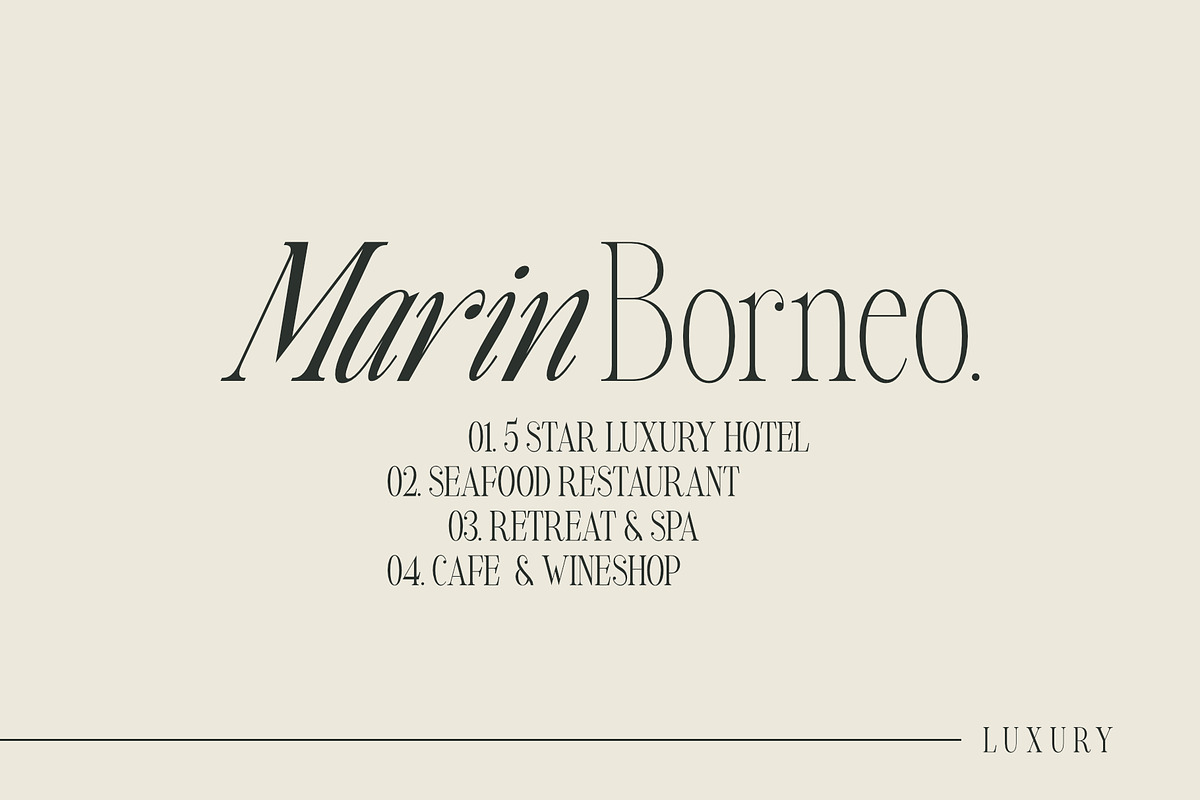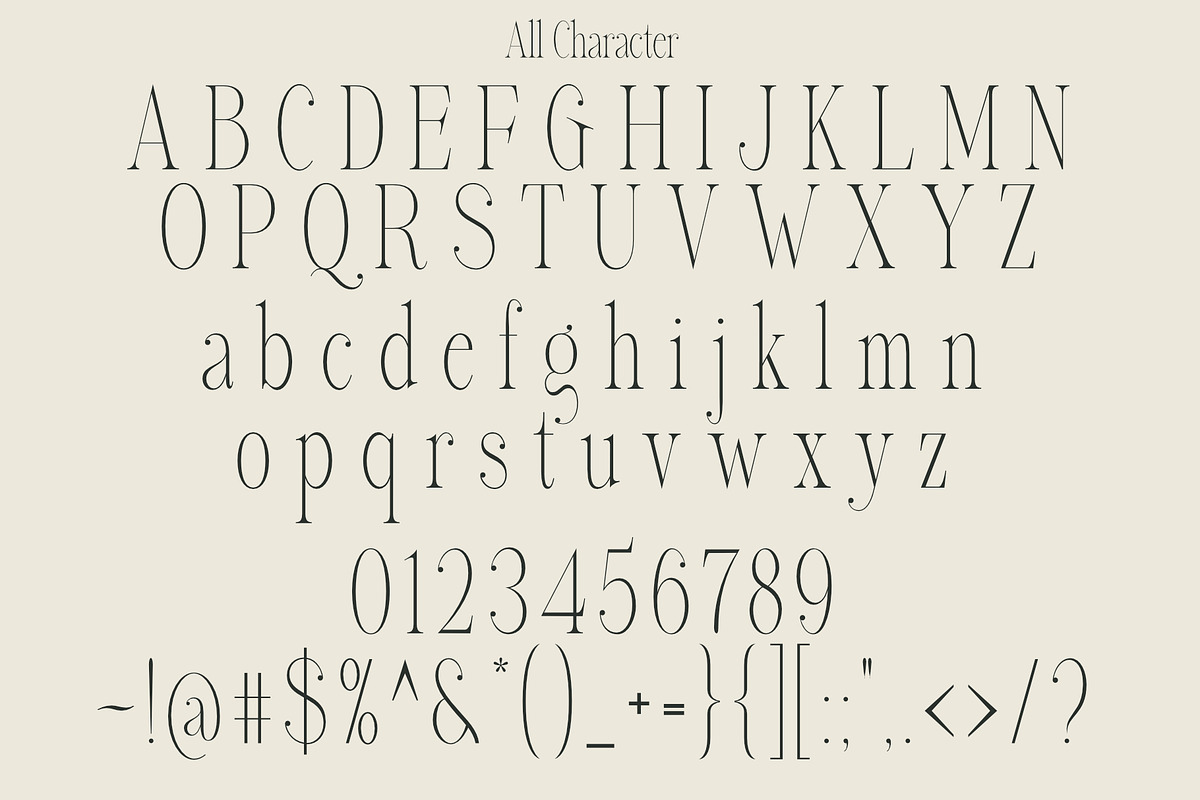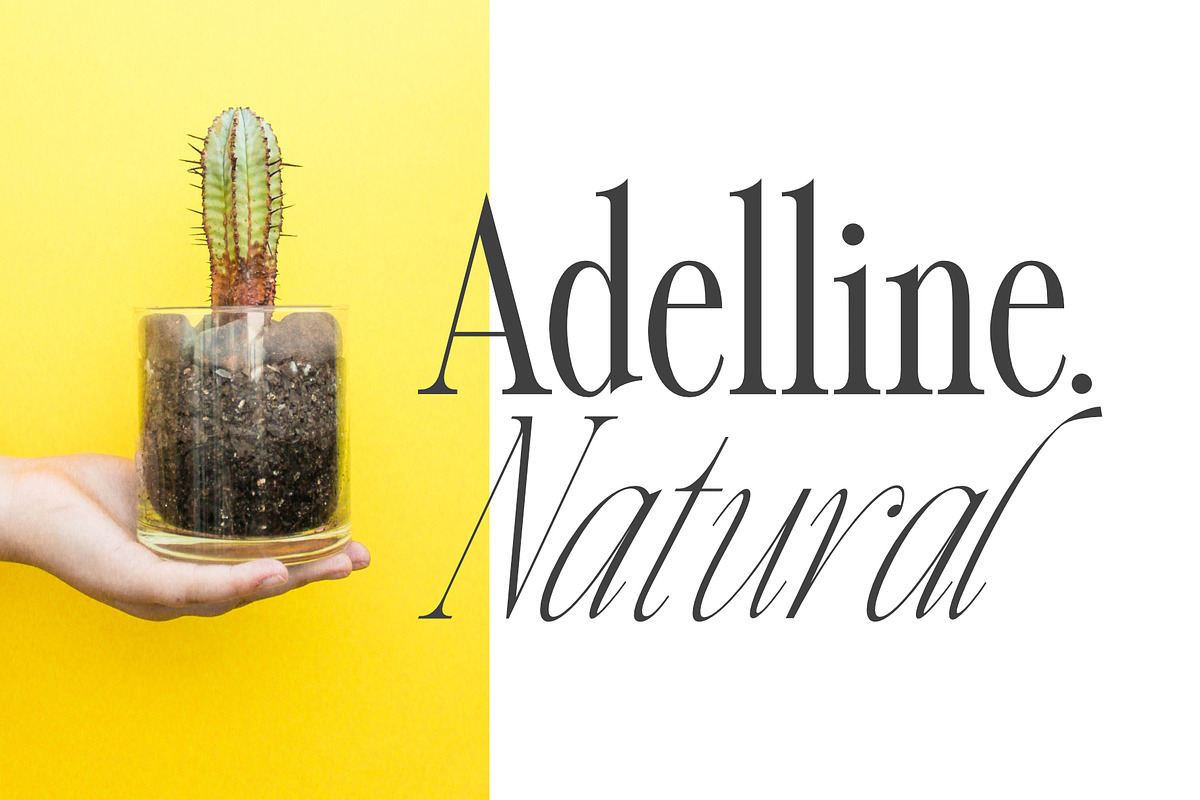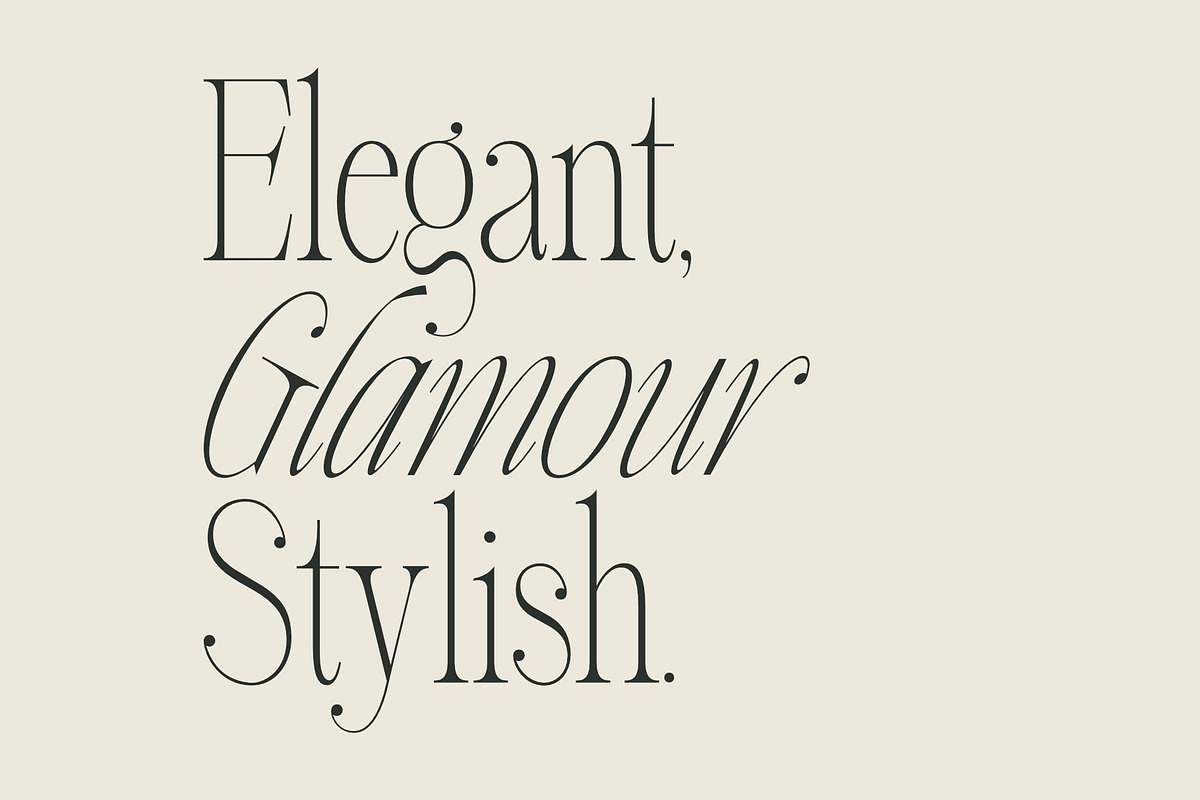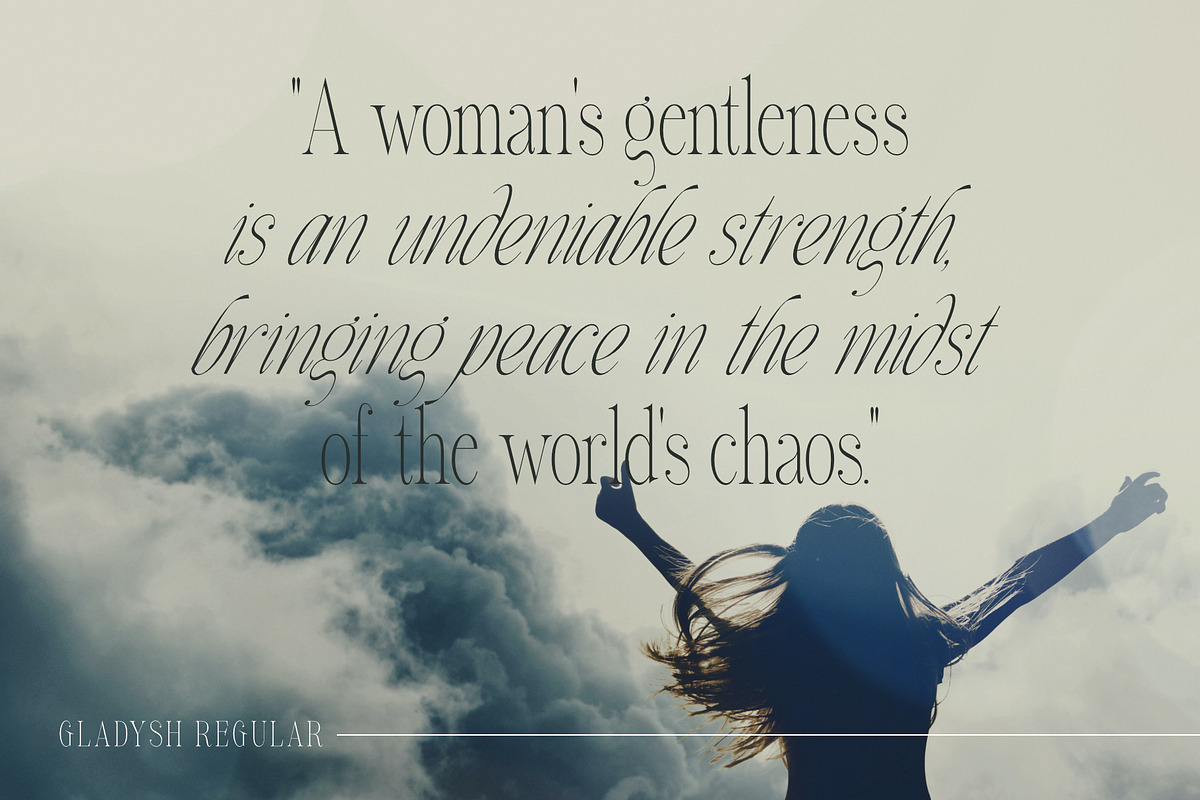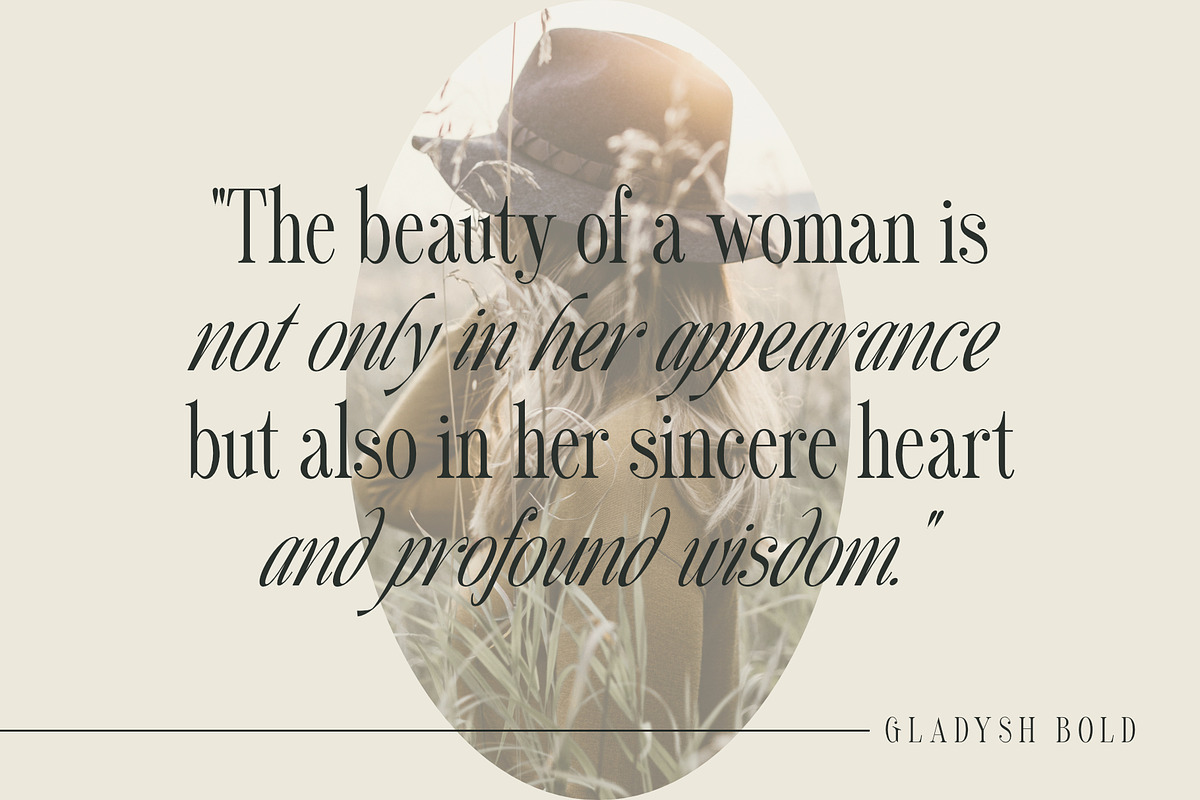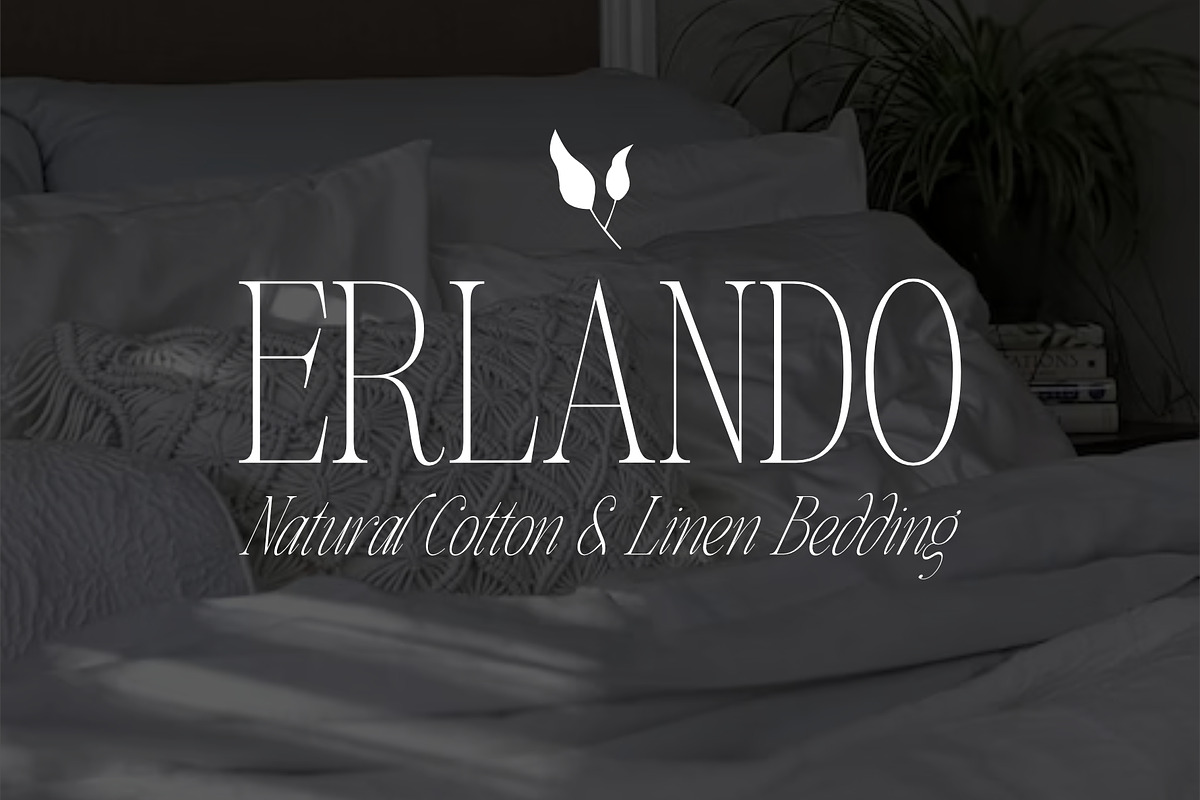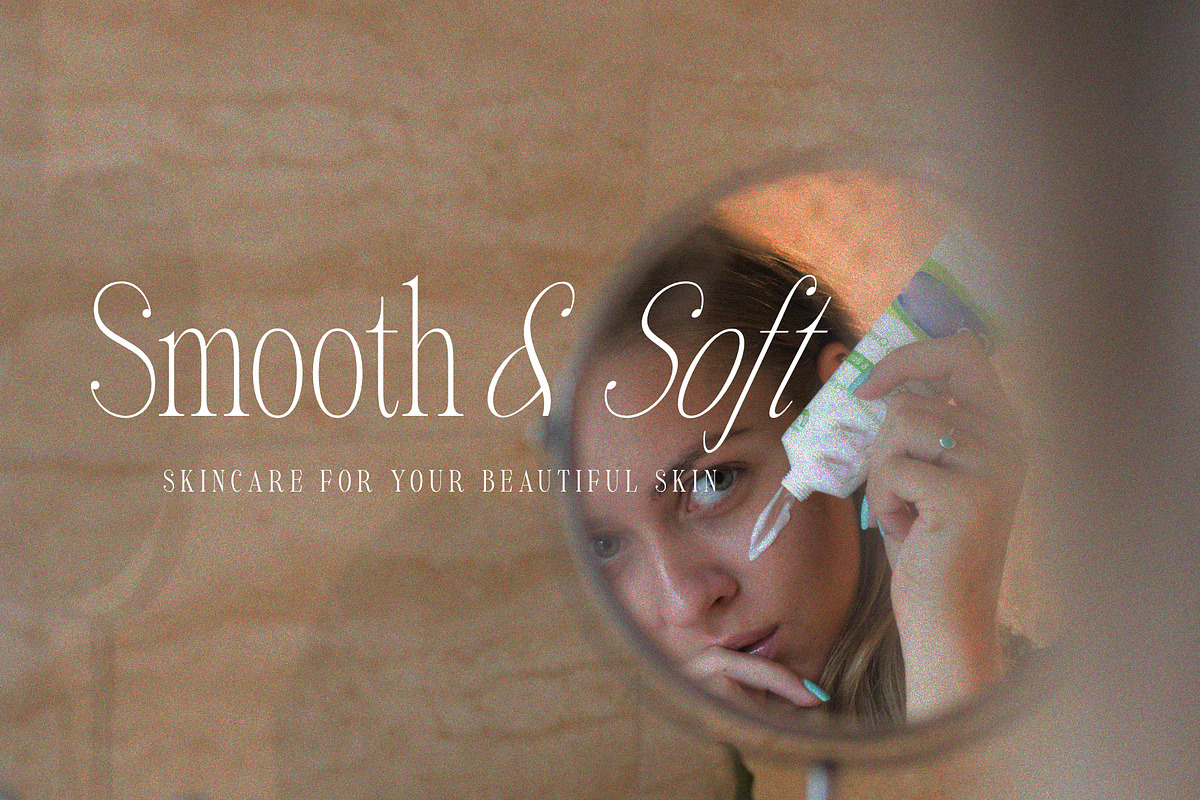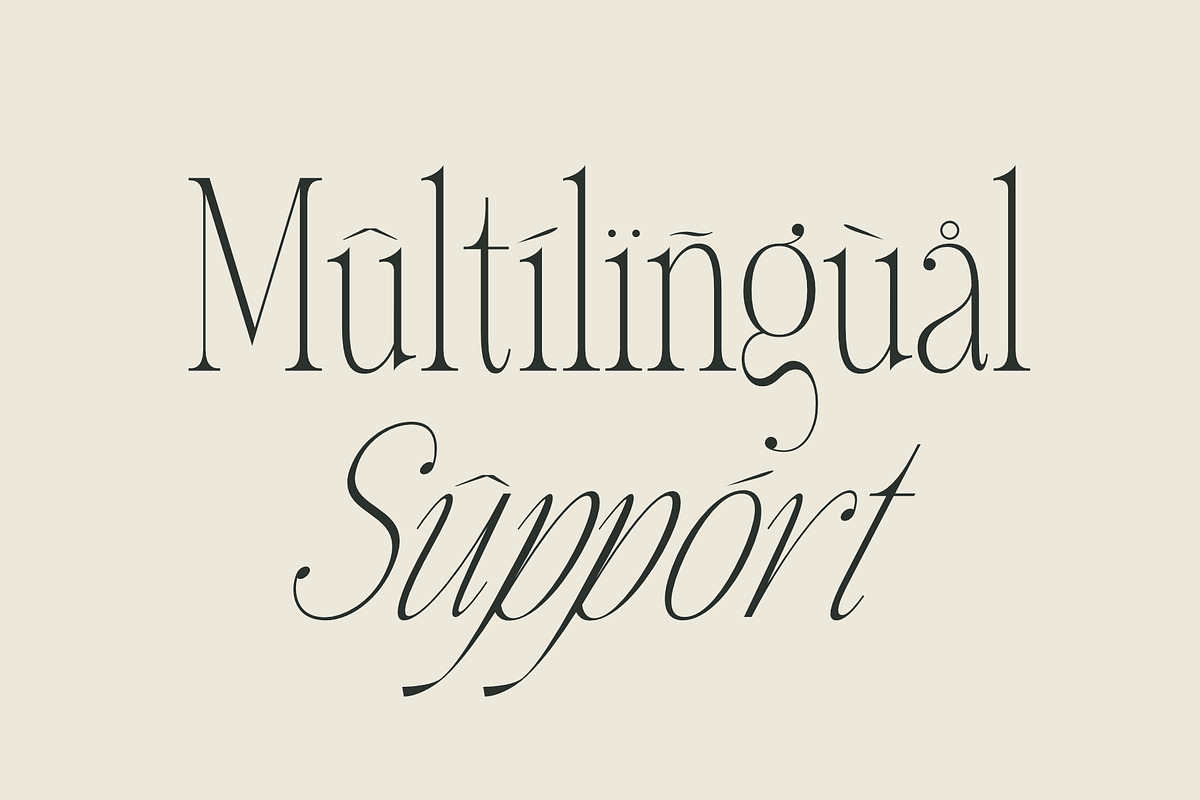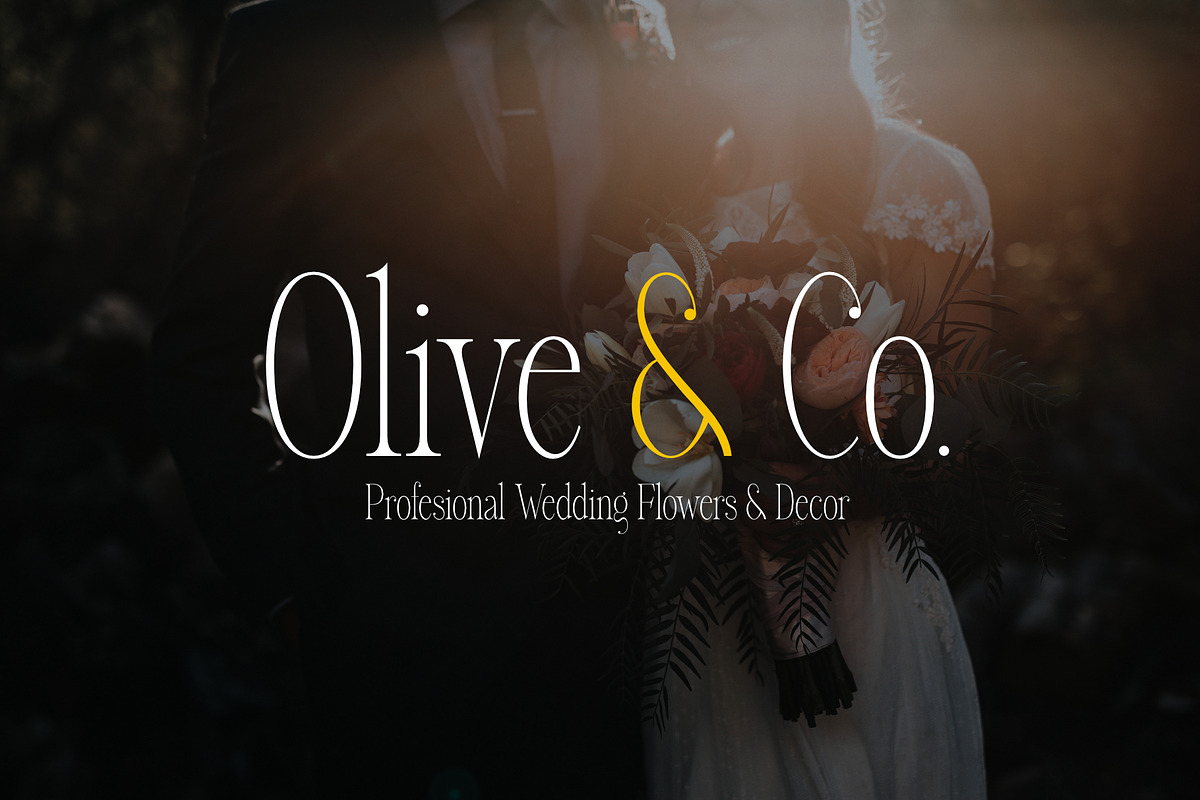
Gladysh | Elegant Condensed Serif
Introducing our latest font creation, a harmonious blend of elegance and boldness – Gladysh Elegant Condensed Serif Typeface. This unique font is meticulously crafted to cater to a diverse range of design needs, providing a versatile solution for both modern and classic projects.
Thin and Bold Styles: Strike the perfect balance between subtlety and prominence with our meticulously designed thin and bold variations. Whether you're crafting a sleek corporate logo or designing a minimalist poster, these styles offer the flexibility to express your creativity.
Italic Grace: Elevate your design with the added touch of sophistication. The italic variations of ThinBold introduce a graceful slant, ideal for conveying a sense of movement, emphasis, and a touch of editorial flair. Perfect for fashion, editorial, or any project where a dynamic aesthetic is desired.
Versatility in Application: From branding and advertising to web design and print materials, ThinBold Italic Typeface adapts seamlessly to various design contexts. Experiment with different weights and italics to achieve the visual impact you desire.
Clean and Readable: Despite its stylish intricacies, ThinBold remains highly legible. Each character is meticulously crafted to ensure clarity and readability, making it an excellent choice for body text as well as headlines.
Extensive Character Set: The font includes a comprehensive character set, encompassing a variety of accents and special characters to support multiple languages. This ensures that your design projects can maintain a consistent and professional look across diverse linguistic requirements.
Elevate your design projects with the Gladysh Elegant Condensed Serif Typeface – where sophistication meets versatility. Download and incorporate this font into your toolkit for a sleek, contemporary, and dynamic visual identity.